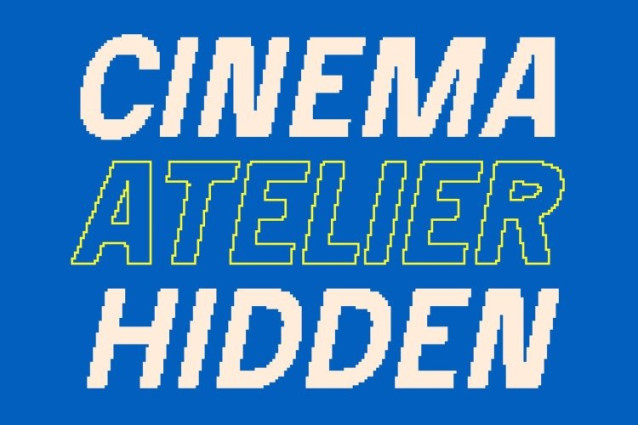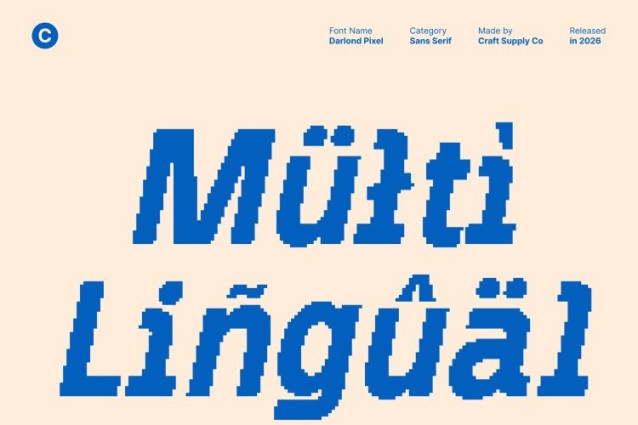
Darlond Pixel Font
Darlond Pixel Font This is a bold sans serif font that blends classic retro vibes with a distinctive pixel character. Its strong letterforms and digital detailing create a vibrant, confident appearance that feels nostalgic yet modern perfect for designs that demand attention.
Retro Character, Modern Strength
Built on a solid sans serif foundation, this font delivers clarity and impact. The pixel influence enhances its retro personality, evoking old-school digital displays while maintaining a professional and structured look suitable for contemporary use.
Designed for Visual Impact
This font prioritizes bold expression and high visibility across both print and digital media. Its powerful weight and pixel-styled edges add energy and movement, making it ideal for headlines, posters, branding, and promotional materials.
Versatile for Bold Design Projects
From logos and editorials to websites and advertising, this font adapts effortlessly to a wide range of design needs. Its bold sans serif form combined with pixel-inspired character ensures your visuals remain dynamic, memorable, and full of classic yet modern appeal.